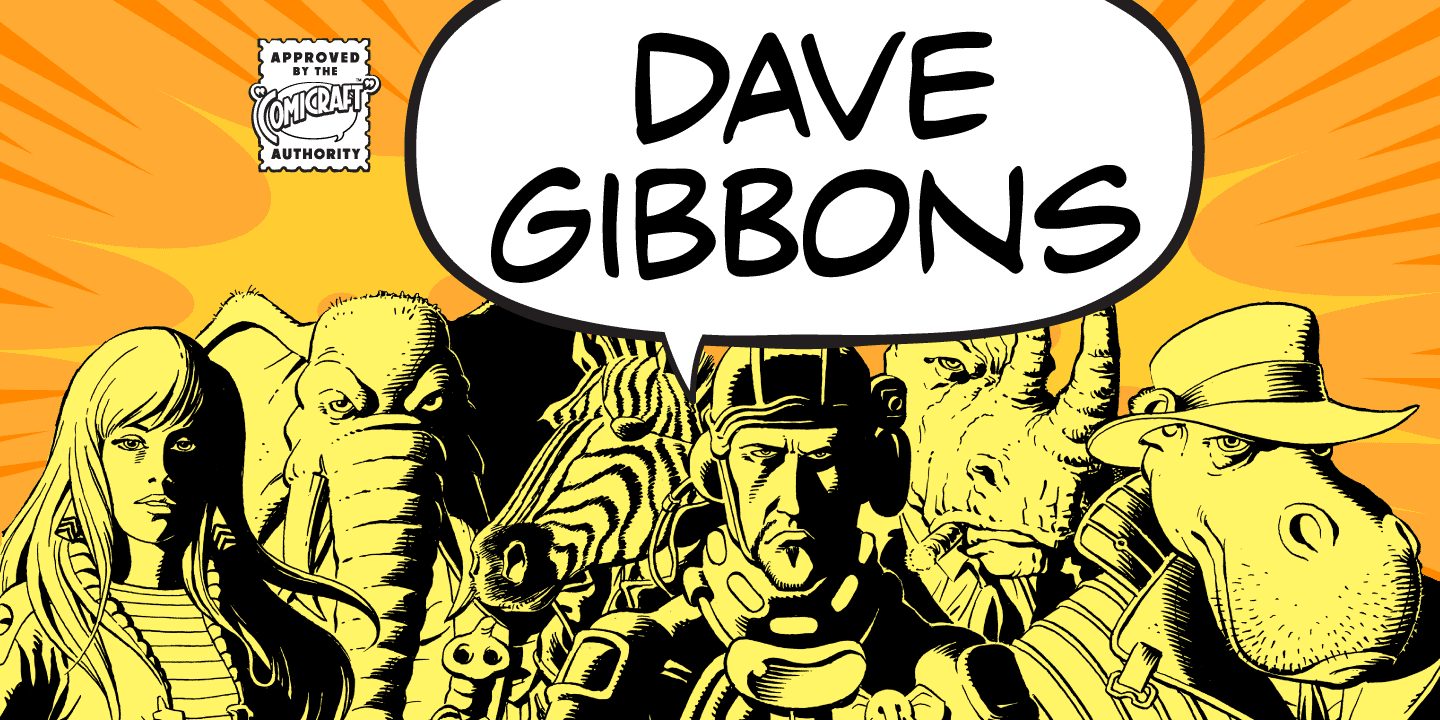
Dave Gibbons Font is perfect for comic book publishing houses, graphic novel design projects, superhero merchandise branding, comic convention materials, sequential art publications, indie comic creator portfolios, comic book store signage, graphic storytelling workshops, pop culture entertainment venues, and artistic narrative brands that require distinctive typography with comic book artistry and graphic novel sophistication.
What makes Dave Gibbons Font so exciting is its masterful embodiment of comic book craftsmanship through precisely drawn letterforms that capture the professional artistry and narrative power of legendary graphic novel creation. This font features clean, well-constructed character shapes with comic book proportions and artistic precision that reflect the meticulous attention to detail and storytelling excellence found in professional sequential art. The artistic design approach balances creative expression with functional readability while ensuring optimal performance across graphic storytelling applications, making it perfect for creators who need to project comic book authenticity, artistic excellence, and the sophisticated craft of professional graphic narrative.
The Dave Gibbons Font family includes multiple weights and styles: Light, Regular, Medium, Bold, Black, Comic, and their corresponding Italic variants. Each weight maintains the signature comic book character while offering comprehensive flexibility for sequential art design applications and graphic narrative typographic expressions.
Comic art professionals consistently choose Dave Gibbons Font Free Download for projects requiring authentic comic book typography that embodies the spirit of graphic novel excellence and sequential art mastery. Whether you're developing comic book brand identities, creating graphic novel publications, designing comic convention materials, or crafting pop culture entertainment campaigns, this font delivers exceptional artistry and comic book authenticity. The font's comprehensive character set includes comic book symbols and graphic novel styling options while ensuring optimal performance across both digital and print comic applications, making it an indispensable tool for designers working on sequential art projects that demand artistic, professional, and authentically comic book typography solutions with graphic novel excellence and narrative sophistication.